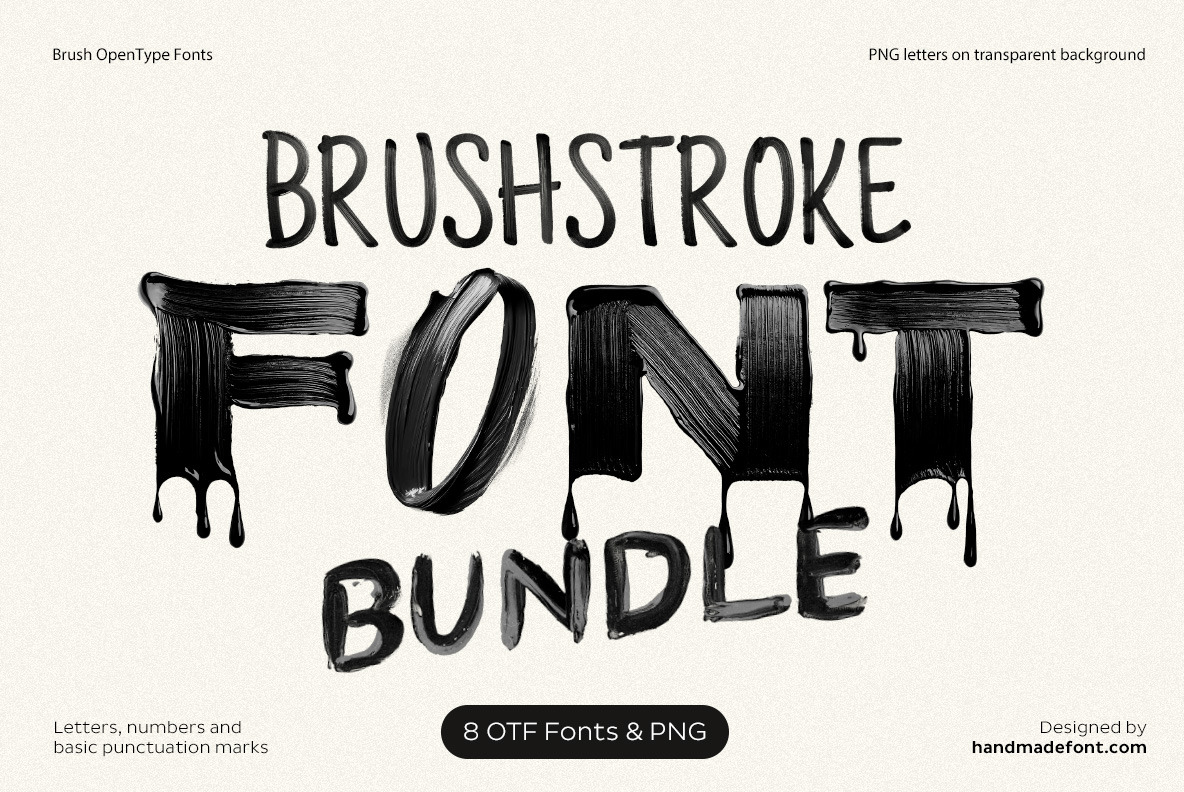
Brush Font Bundle - 8 Fonts
The Brush Font Bundle is a vibrant collection of 8 stunning fonts inspired by the fluidity of paint and the artistry of brush strokes. Perfect for adding a bold, handcrafted touch to your projects, these fonts bring creativity to life with expressive lettering styles that evoke the essence of artistic design. Whether you're crafting eye-catching typography for logos, posters, or social media, this bundle offers versatile options to enhance your creative vision. Designed for artists, designers, and lettering enthusiasts, these fonts celebrate the beauty of brushwork and the timeless appeal of hand-painted art in modern design.
High definition OpenType Fonts. Contains uppercase characters, numerals and basic punctuation. (Draw height roughly 800 pixels). All letters and glyphs that comprises this font you can see on the preview.
- Letters : A B C D E F G H I J K L M N O P Q R S T U V W X Y Z
- Numbers : 0 1 2 3 4 5 6 7 8 9
- Others : ! ? - . ' $ € % @ &